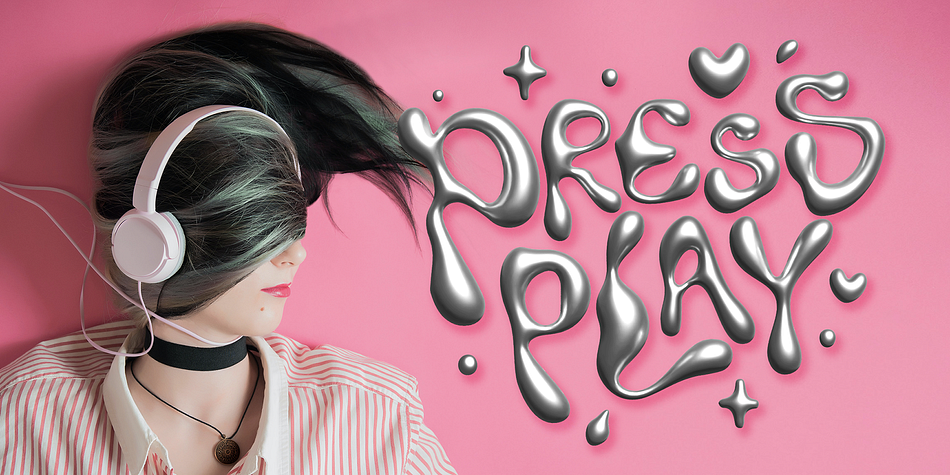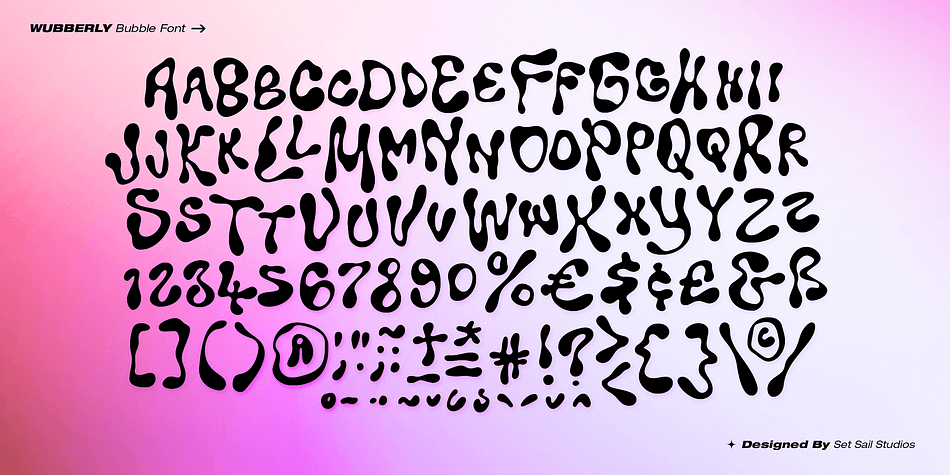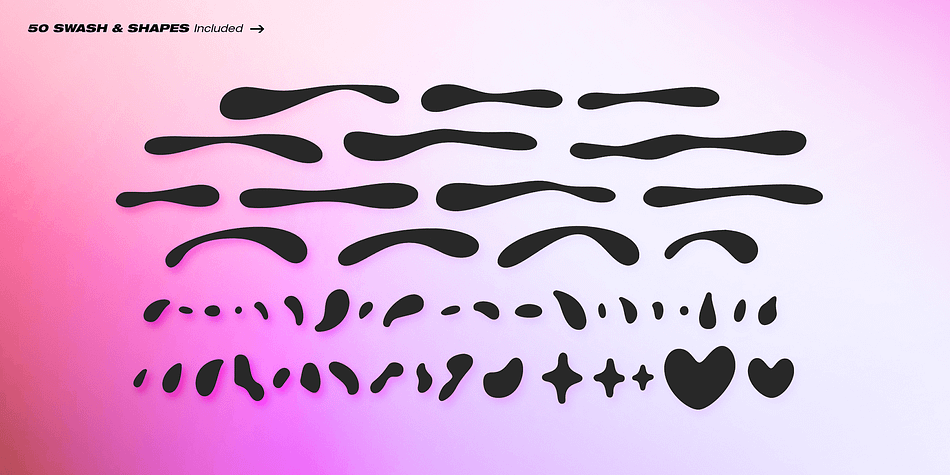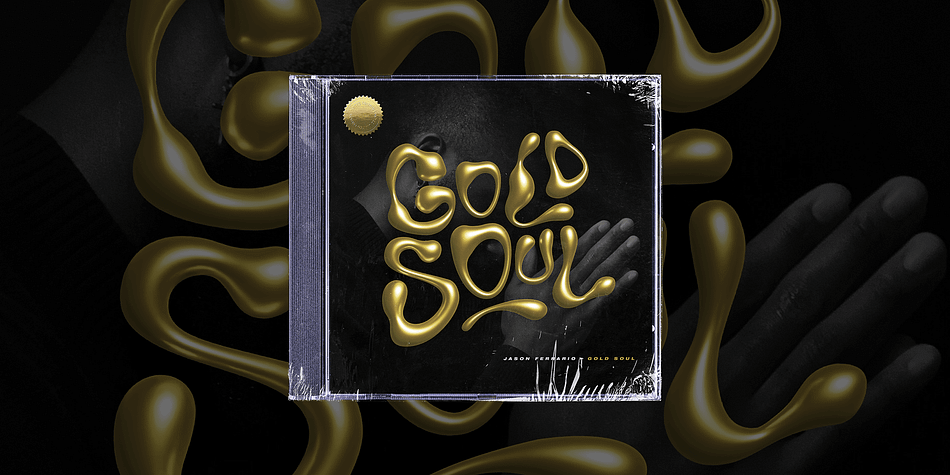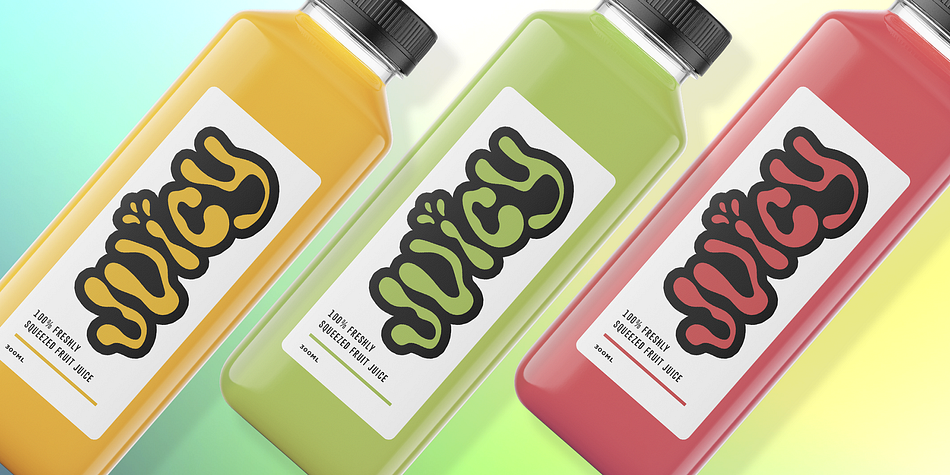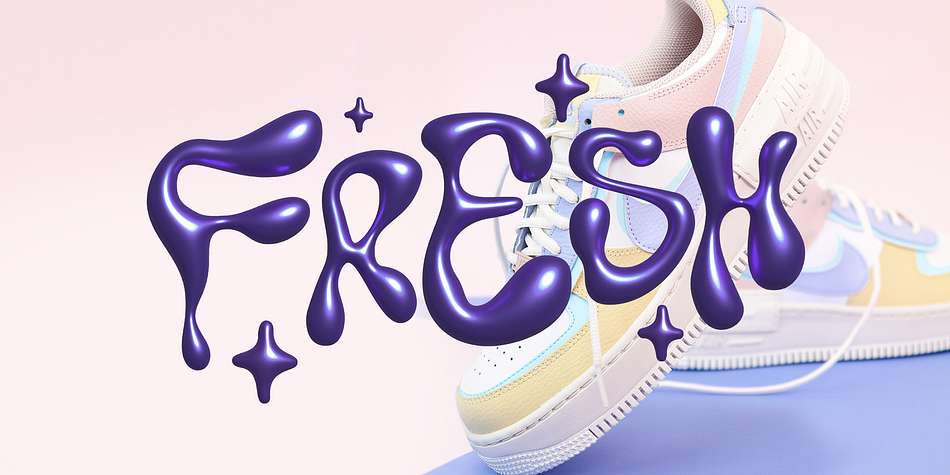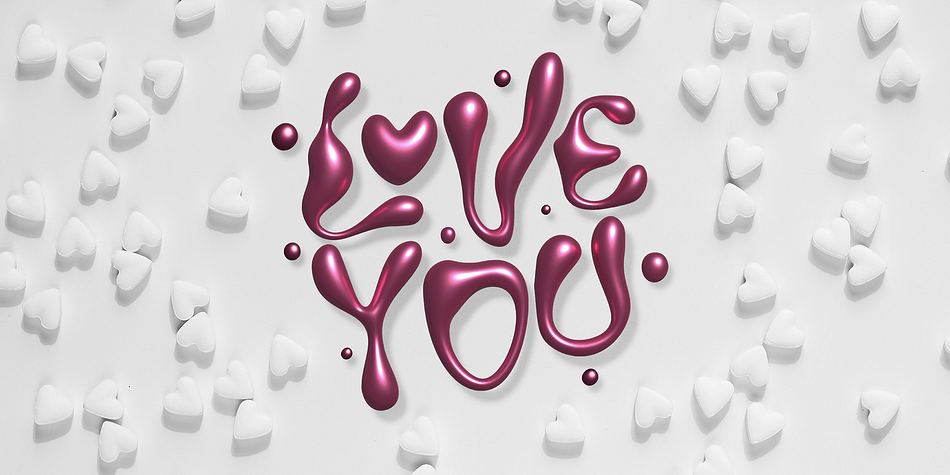
Wubberly
Designed by Sam Parrett, Wubberly is a display, display sans and dingbat font family. This typeface has two styles and was published by Set Sail Studios.
Add some Y2K-inspired bubble typography to your designs with Wubberly! A fun, flowing, and irresistibly gloopy font set containing 2 sets of uppercase characters, as well as 50 swashes and shapes to compliment your bubble text. Whether your project needs a nostalgic pop or just something fun and eye-catching, it’s an undeniably playful choice for display text, logo designs, product packaging, social media and more. Try applying your own 3D textures to it for extra wow factor—chrome, liquid, bubble, slime, the choice is yours!
Foundry Set Sail Studios
Styles Display, Display Sans, Dingbat
Designer Sam Parrett